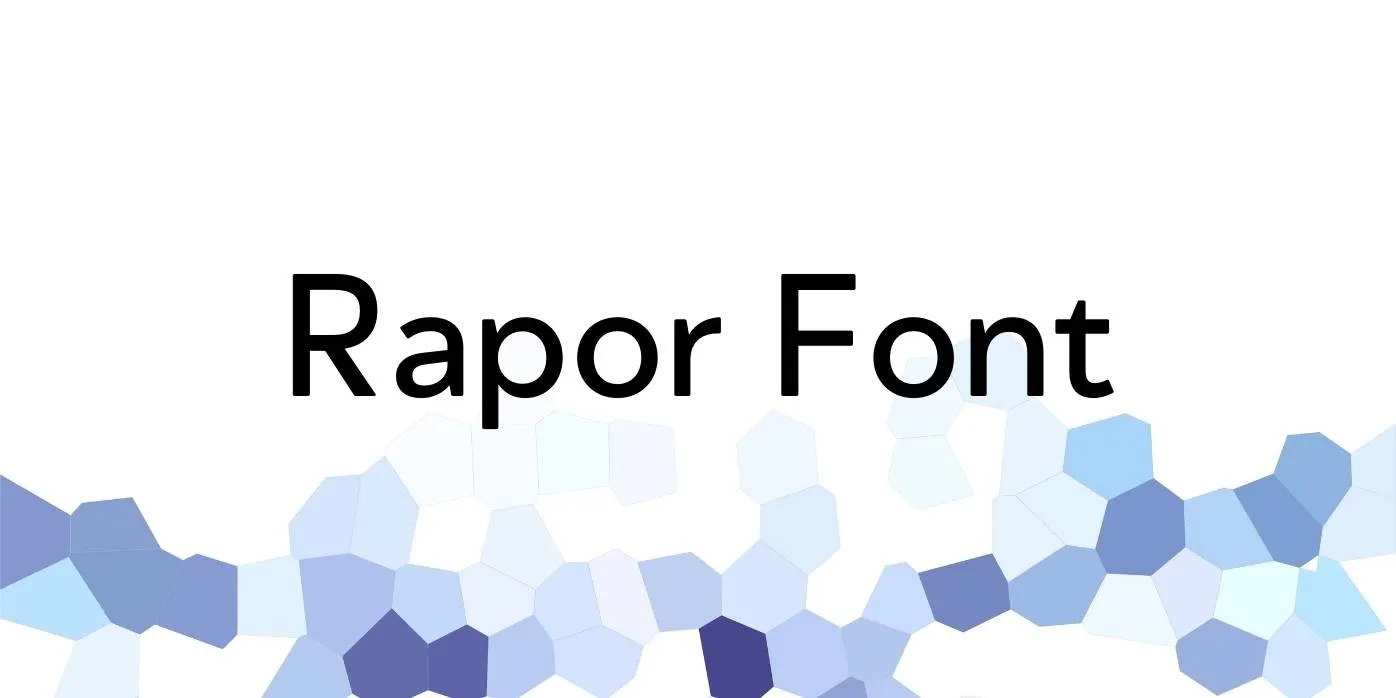
Rapor Font
Here, we present a stylish typeface named Rapor Font. It belongs to the sans serif family and was developed by the Hurufat font foundry. The overall appearance of this font is very sleek and modern. Additionally, it supports a wide range of languages including Latin, Cyrillic, and Greek.
This typeface would be an excellent choice for any project that requires a touch of sophistication. For instance, it could be used for branding, advertising, or even as the main typeface for a website or app. Its copy and paste function is suitable for many projects. You can also it for Adobe and Canva.
One unique feature of Rapor Font is its dual-tone capability. You can also use ginora sans font which is closest to this font family. This means that it can be used to create designs that have two colors – one for the foreground and one for the background. This can be especially useful for creating contrast or adding visual interest to a design.